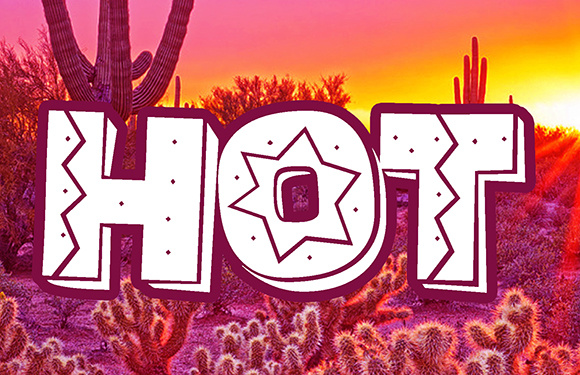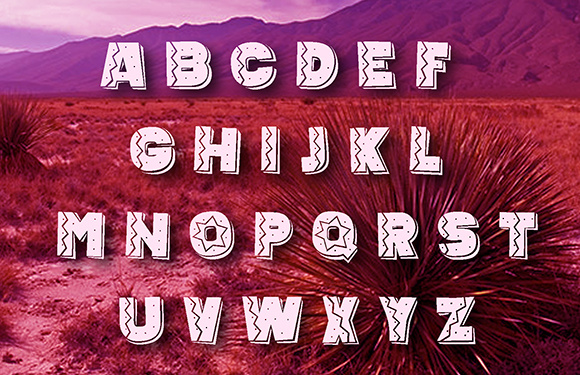
Introduction to Mexican Tequila Font
As a designer, have you ever been stuck trying to find the perfect font for your creative project? The search can be overwhelming, but sometimes, it’s the smallest discovery that can make all the difference. For me, it was the moment I stumbled upon the Mexican Tequila Font, and I knew I had found something special.
This amazing font is not just a design resource, but a key to unlocking the vibrant spirit of Mexican culture. With its unique, hand-drawn style and high-quality design, the Mexican Tequila Font is perfect for adding a touch of authenticity to your posters, banners, and headlines. Whether you’re working on a freelance project or a large-scale campaign, this font is sure to elevate your design and leave a lasting impression.
- Designed with a unique, hand-drawn aesthetic, giving it a distinctive and eye-catching appearance.
Honest Review: Mexican Tequila Font
I recently stumbled upon the Mexican Tequila Font, and I have to say it’s a great addition to any designer’s toolkit. As a design resource, it offers a unique and vibrant aesthetic that’s perfect for creative projects.
The font features a transparent background, which makes it easy to use and customize. The high-quality design is evident in every aspect of the font, from the bold typography to the intricate details.
What works well: ✨ The font’s bold and playful design makes it perfect for creating eye-catching headings and titles. It’s also great for adding a touch of Mexican flair to your designs.
- High-quality design with intricate details
- Bold and playful typography
⚠️ One limitation of the font is that it may not be suitable for body text, as it can be quite busy and overwhelming. However, it’s perfect for headings and titles.
Use the Mexican Tequila Font in a design with a transparent background for a unique look. You can also pair it with other high-quality fonts for a creative project. Experiment with different font sizes and colors to get the most out of this design resource.